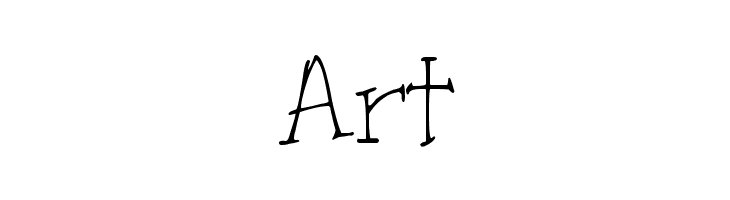
( Fonts by www.kimberlygeswein.com - Kimberly Geswein )
A playful, handwritten font with irregular strokes and a whimsical style.
( Fonts by Sentinel Type - James Arboghast )
A bold slab serif font with a vintage yet modern appeal.
( Fonts by Sentinel Type - James Arboghast )
A bold slab serif font with a vintage Western style.
( Fonts by Silvan Kaeser - www.planet-luzern.ch )
A bold, modern sans-serif font with a condensed and professional appearance.
( Fonts by Syed Hakim Omar )
A bold, energetic handwritten font with playful, irregular strokes.